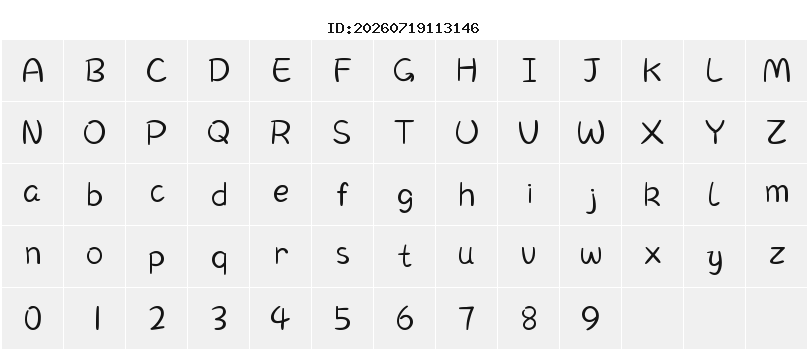
也字工厂吹泡泡体 Preview
• Font Name: 也字工厂吹泡泡体
• Full Font Name: 也字工厂吹泡泡体
• PostScript Name: YEFONTChuiPaoPaoTi
• Manufacturer: 也字工厂
About 也字工厂吹泡泡体.ttf
也字工厂吹泡泡体.ttf is a modern, elegant sans-serif font designed for ultimate readability and visual harmony. Perfect for branding, headlines, web design, and print materials.